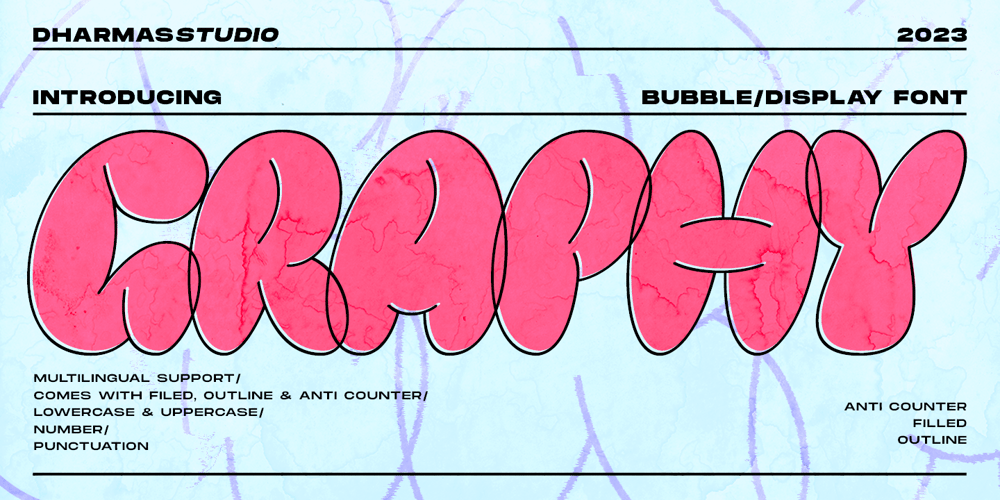
Graphy Font Family was designed by Ahmad Jamaludin and published by Ahmad Jamaludin. Graphy contains 3 styles and family package options. Introducing Graphy, the font that fuses the energetic spirit of street art and the trendsetting vibes of y2k culture.This unique typeface offers three distinct styles: Filled, Anti Counter, and Outline, whether you’re working on logos, branding, or social media graphics Graphy Main File Has 3 style: Filled, Anti Counter, and Outline Instructions (Access special characters, even in Cricut Design) Unique Letterforms Works on PC & Mac Thank you,Dharmas Studio